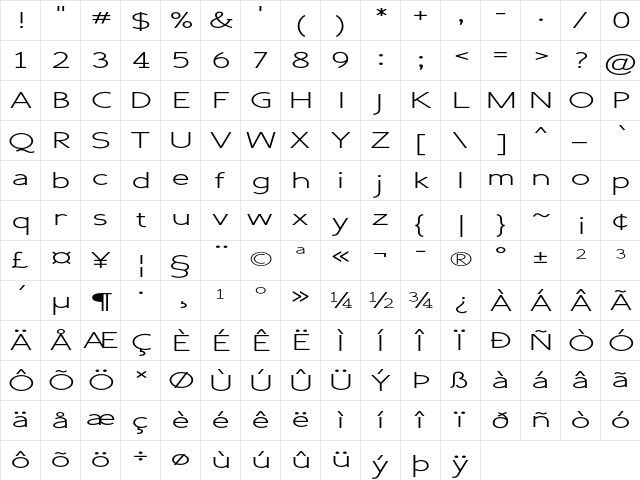
Gadera Extra-expanded Regular Free Font
Gadera Extra-expanded Regular
Style: Extra-expanded Regular
Design Context for Gadera
Gadera is a composed and adaptable typeface that performs quietly and consistently across a wide range of design contexts.